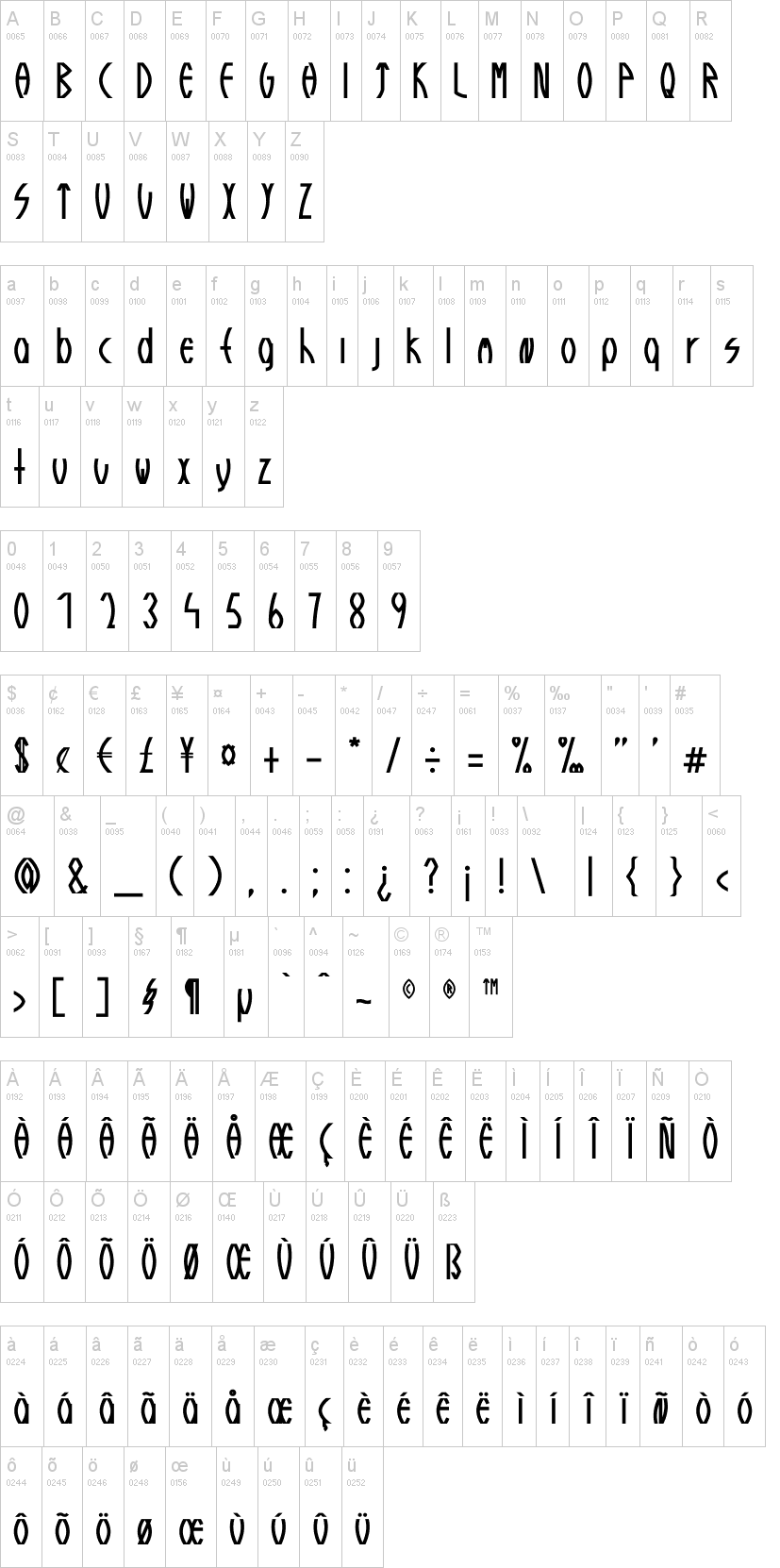
Guazhiru is easily adaptable to any style, whether ancient, modern or futuristic.
4 font styles: Regular, Regular Outlined, Italic and Italic Outlined
Guazhiru s'adapte facilement à chaque style, qu'il soit ancien, moderne ou futuriste.
4 styles de polices: Regular, Regular Outlined, Italic and Italic Outlined